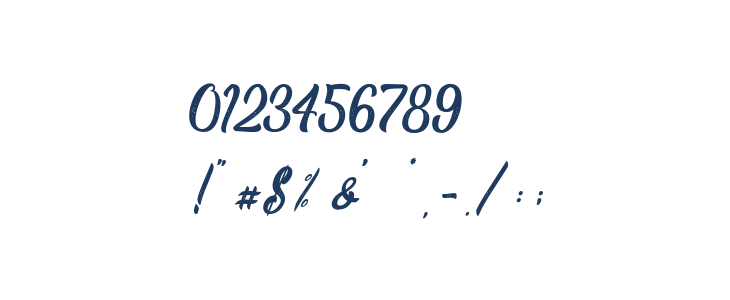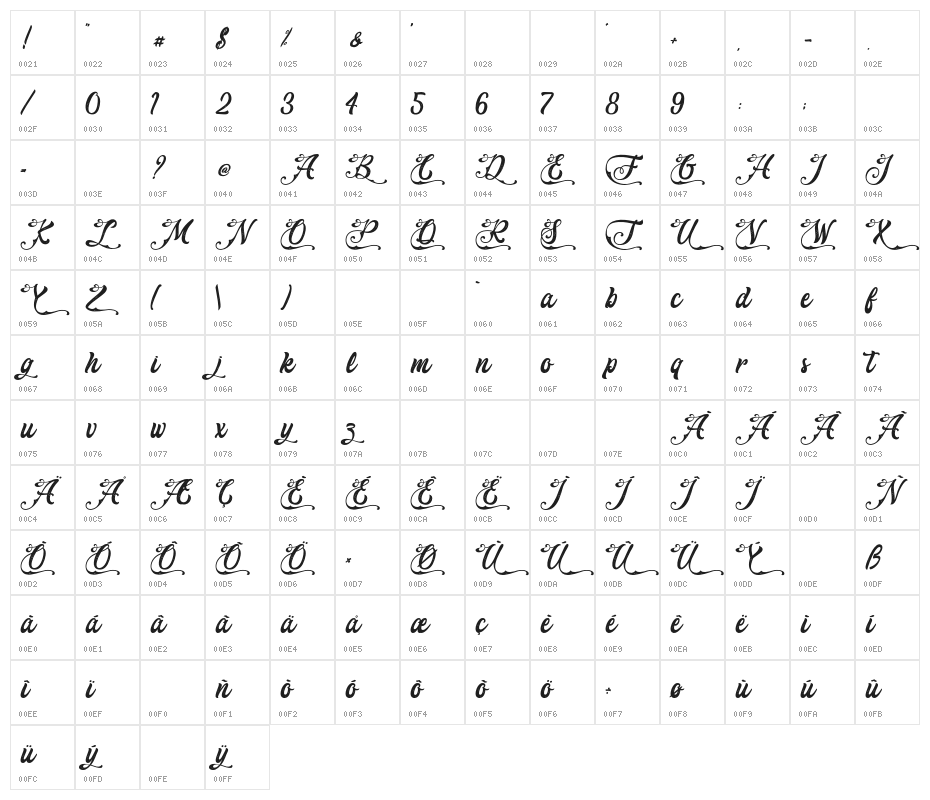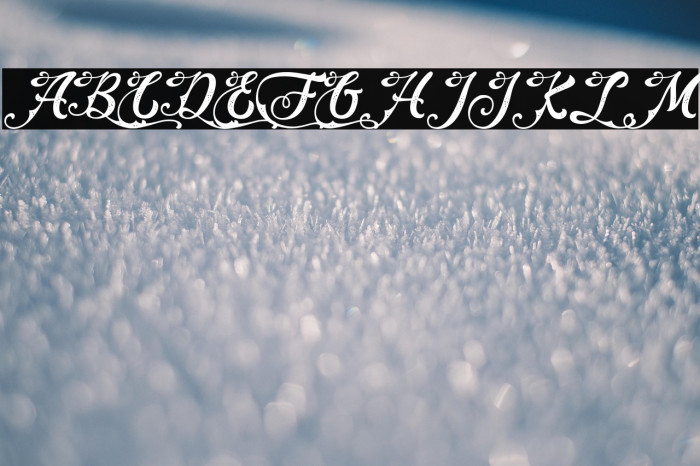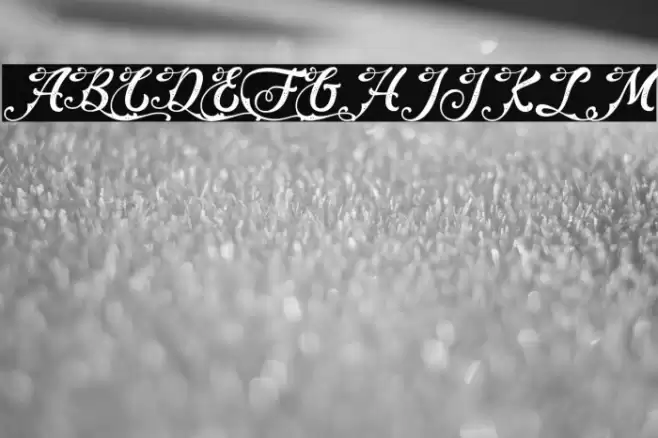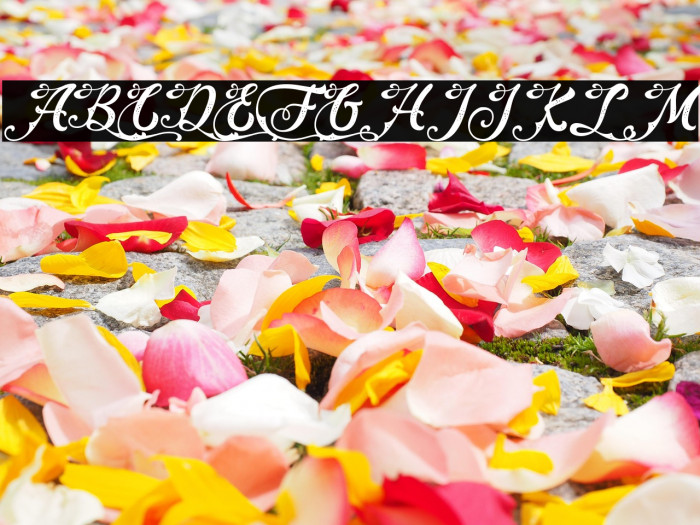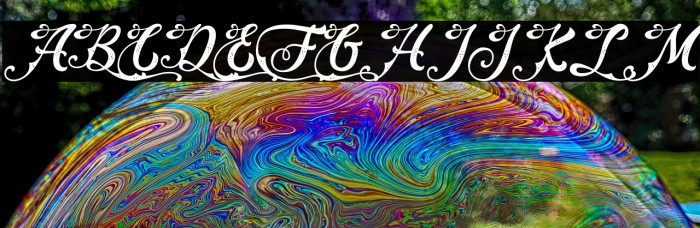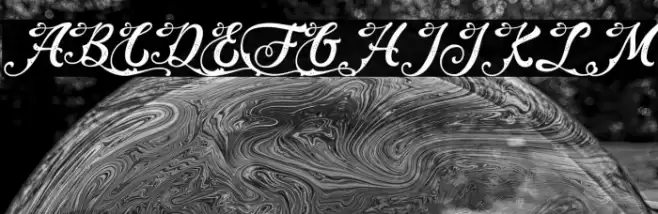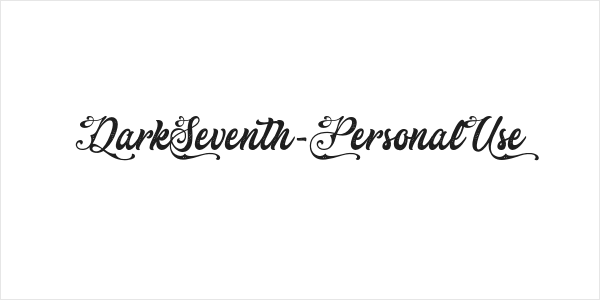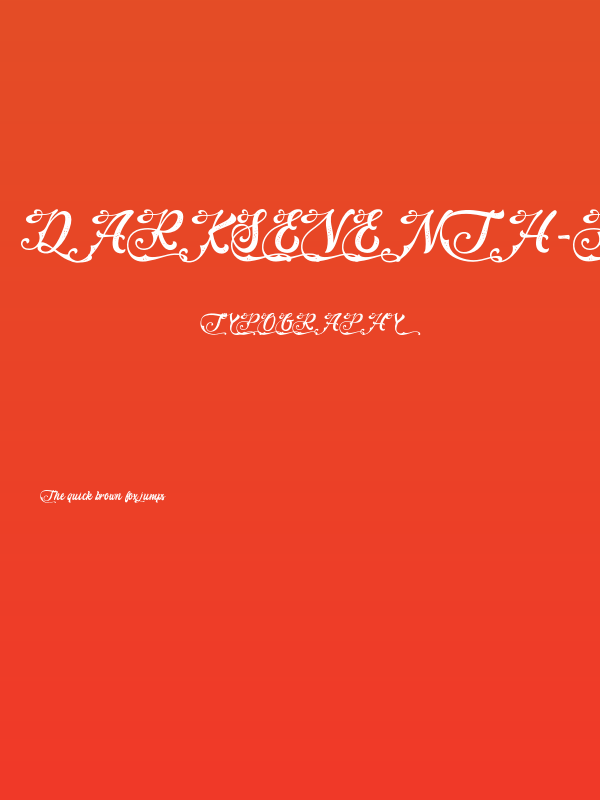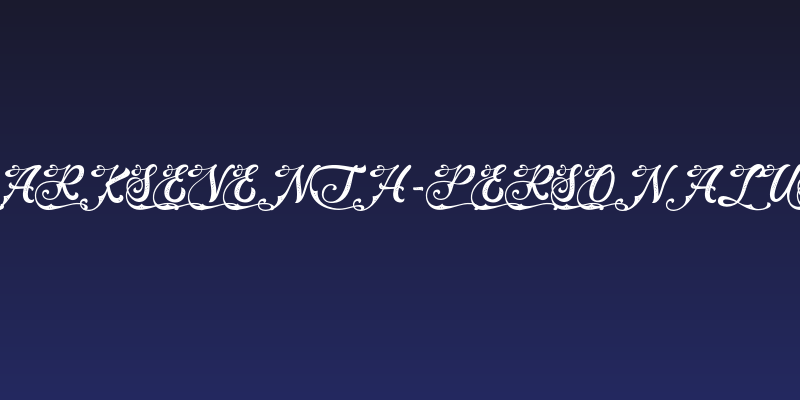
DarkSeventh-PersonalUse Font
DarkSeventh-PersonalUse Description
This font features an elaborate and decorative style with intricate swirls and flourishes that give it a highly ornamental appearance. The uppercase letters are particularly embellished, with extended strokes and loops that add a sense of elegance and sophistication. The lowercase letters maintain a more fluid and cursive style, providing a nice contrast to the ornate capitals. The numbers and special characters are consistent with the overall decorative theme, making this font suitable for creative and artistic projects. Its unique design makes it stand out, ideal for capturing attention in headlines or logos.
| Proposed Projects | Ideal for wedding invitations, luxury branding, artistic posters, and decorative headlines. |